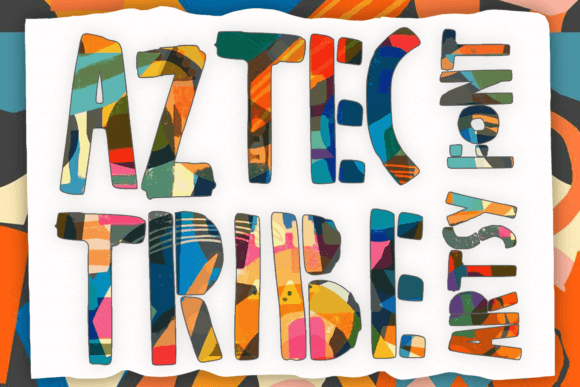
Aztec Tribe: A Whimsical Font for Creative Expression
Fonts are more than just a way to present textâtheyâre tools that shape how we communicate and connect with our audience. For designers, artists, and everyday creators, finding the right font can elevate a project from ordinary to extraordinary. One such font that has captured the attention of many is Aztec Tribe, an artsy display typeface known for its playful and versatile character. Whether you're designing a t-shirt, creating a children's book, or crafting a poster, Aztec Tribe offers a unique aesthetic that adds charm and personality.
What Makes Aztec Tribe Unique?
The Aztec Tribe font draws inspiration from ancient symbols and tribal motifs, blending them with a modern, whimsical twist. Its stylized letters and intricate details give it a distinctive look that stands out in any visual medium. Unlike standard fonts, Aztec Tribe isnât meant for long blocks of text. Instead, it shines when used as a headline, title, or accent in creative projects.
This font is especially loved by those who enjoy working with bold, expressive typography. Itâs not just about looking good; itâs about evoking emotion and sparking curiosity. The characters have a handcrafted feel, making each design seem personal and engaging.
Key Features of Aztec Tribe
- Versatility: Aztec Tribe adapts well to various usesâfrom casual stickers to professional branding materials.
- Artsy Appeal: With its decorative strokes and tribal-inspired elements, it brings a sense of creativity and fun to any project.
- High Readability in Context: While it may not be ideal for body text, Aztec Tribe remains legible enough for short phrases and titles.
- Customizable Style: Many versions of this font allow for stylistic alternates, giving designers more control over the final appearance.
Where Can You Use Aztec Tribe?
Aztec Tribe is a go-to choice for anyone needing a font that commands attention without being overwhelming. Here are some common applications where this font truly excels:
1. T-Shirt Designs
T-shirts are a canvas for self-expression, and Aztec Tribe helps bring that vision to life. Its bold and artistic style makes it perfect for slogans, logos, or even single words like âCourageâ or âDream.â When paired with vibrant colors or tribal patterns, the font enhances the overall theme and creates a memorable look.
2. Kidsâ Book Illustrations
Childrenâs books often rely on eye-catching visuals and imaginative typography to engage young readers. Aztec Tribe can add a magical touch to titles, chapter headings, or illustrated scenes. Its playful nature aligns well with stories featuring adventure, mythology, or fantasy themes, especially those inspired by ancient civilizations or cultural heritage.
3. Greeting Cards and Stationery
Greeting cards benefit greatly from fonts that convey warmth and personality. Aztec Tribe adds a festive and artistic flair, whether you're designing birthday cards, thank-you notes, or holiday greetings. Its unique style ensures your message is delivered with both style and substance.
4. Stickers and Labels
For custom stickers or product labels, Aztec Tribe provides a visually appealing option thatâs sure to stand out. Its detailed letterforms make it ideal for small designs where every stroke matters. From handmade crafts to promotional items, this font adds a sense of authenticity and charm.
5. Posters and Event Flyers
Posters need to grab attention quickly, and Aztec Tribe delivers with its striking visual presence. Whether advertising a music festival, art exhibit, or community event, using this font can help create a design that feels both exciting and original.
Who Benefits from Using Aztec Tribe?
Aztec Tribe appeals to a wide range of users due to its balance between aesthetics and functionality. Some key beneficiaries include:
- Graphic Designers: Those who work on branding, packaging, or illustration projects will appreciate the fontâs ability to enhance visual storytelling.
- Artists and Illustrators: The font complements hand-drawn or digital artwork, adding another layer of creativity to their pieces.
- Small Business Owners: Entrepreneurs in creative industriesâlike fashion, stationery, or event planningâcan use Aztec Tribe to build brand identity and attract attention.
- Hobbyists and DIY Creators: If you love crafting, scrapbooking, or designing personal projects, Aztec Tribe can bring a fresh and artistic perspective to your work.
- Content Creators: Bloggers, YouTubers, and social media managers can leverage this font for thumbnails, headers, or branded content to make their material more engaging.
Why Choose Aztec Tribe Over Other Display Fonts?
While there are countless display fonts available, Aztec Tribe distinguishes itself through its blend of cultural references and contemporary appeal. It avoids the clichéd look of overly ornate scripts or rigid block letters, instead offering a middle ground that feels both authentic and approachable.
Its character set is also thoughtfully designed, ensuring that even punctuation marks and numerals contribute to the overall artistic harmony. This level of detail makes it easier to craft cohesive designs without having to switch between multiple fonts.
Strengths and Considerations
Like any font, Aztec Tribe has its strengths and limitations. Understanding these can help you decide if itâs the right fit for your next project.
Strengths
- Eye-Catching Design: Ideal for headlines and accents that need to stand out.
- Flexible Pairing: Works well with simpler sans-serif or serif fonts to maintain readability while adding visual interest.
- Emotional Impact: Conveys a sense of wonder, tradition, and creativity, making it suitable for storytelling and thematic designs.
Considerations
- Not for Long Text: Avoid using Aztec Tribe for paragraphs or large bodies of text, as it may become difficult to read at smaller sizes.
- Printing Quality Matters: Because of its intricate details, ensure high-resolution printing to preserve clarity and prevent pixelation.
- Context Is Key: While Aztec Tribe is highly versatile, it may not suit all audiences or styles. Always consider the tone and purpose of your design before choosing this font.
Real-World Applications of Aztec Tribe
Letâs explore a few real-world examples to better understand how Aztec Tribe can be used effectively:
Example 1: Tribal-Inspired Merchandise
A boutique clothing store wanted to launch a new line of culturally themed apparel. They chose Aztec Tribe for the main logo and slogan, combining it with traditional patterns and earthy tones. The result was a collection that felt both respectful and stylish, resonating with customers who appreciated the thoughtful design choices.
Example 2: Educational Materials for Kids
An independent publisher created a series of educational storybooks for preschoolers. To keep the pages lively and engaging, they used Aztec Tribe for chapter titles and interactive prompts. The font helped create a sense of adventure and discovery, encouraging young readers to explore the stories further.
Example 3: Festival Poster Design
A local music festival needed a poster that would reflect its energetic and eclectic vibe. The designer used Aztec Tribe for the event name and featured attractions, pairing it with a gradient background and hand-drawn elements. The poster stood out online and in print, drawing in a larger crowd than expected.
Evaluating Aztec Tribe for Your Project
Before committing to Aztec Tribe, ask yourself a few questions to determine its suitability:
- Is my project focused on creativity or storytelling? If so, Aztec Tribe could be a great match.
- Do I need a font that works best in large sizes? Aztec Tribe is most effective when displayed prominently.
- Will the font complement other design elements? Test it alongside your color scheme, images, and layout to ensure a harmonious result.
- Am I targeting a younger or more adventurous audience? The whimsical style of Aztec Tribe aligns well with these demographics.
By considering these factors, you can confidently choose whether Aztec Tribe fits your needs or if another font might serve better. Remember, the goal is to enhance your message, not overshadow it.
How to Access and Use Aztec Tribe
If youâre interested in trying out Aztec Tribe, itâs widely available through several online font marketplaces and design platforms. Look for it under display or decorative categories, and check licensing terms to ensure it meets your usage requirements.
Once downloaded, you can install Aztec Tribe on your computer or access it via web services like Google Fonts or Adobe Fonts. Most graphic design softwareâincluding Photoshop, Illustrator, and Canvaâsupports custom font installation, making it easy to integrate into your workflow.
Hereâs a quick tip for getting started:
- Download the Aztec Tribe font file (usually .ttf or .otf).
- Install it on your device by double-clicking the file and following prompts.
- Open your design tool and select Aztec Tribe from the font menu.
- Experiment with spacing, size, and color to see what works best for your project.
Final Thoughts
Aztec Tribe is more than just a fontâitâs a design element that can breathe life into your creations. Whether you're a seasoned professional or a weekend hobbyist, this font offers a unique way to express ideas with flair and imagination.
However, its effectiveness depends on how well it aligns with your projectâs goals and audience. Take time to test it in different contexts, and donât hesitate to pair it with other fonts or graphics to find the perfect balance. In the end, the best font is one that supports your message and enhances the experience for your viewers.
Ready to experiment with Aztec Tribe? Start small, play with it creatively, and let your designs tell their own story.